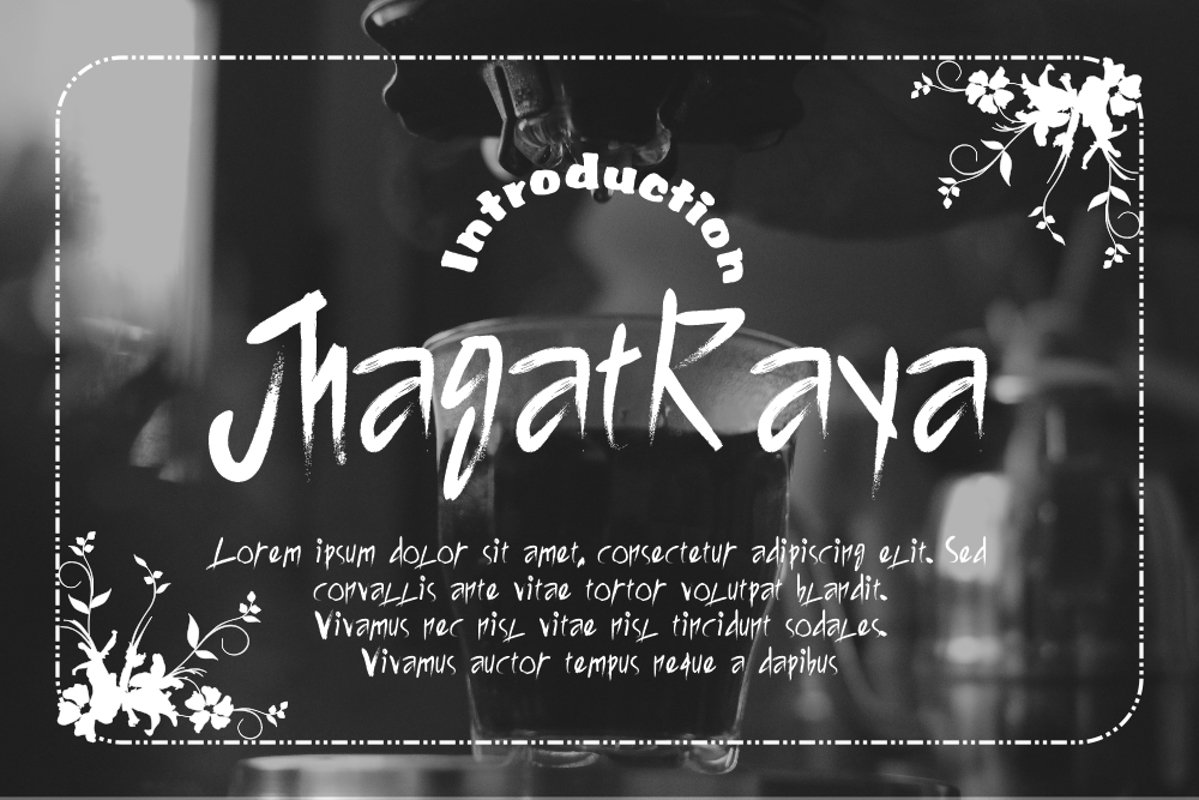
JhagatRaya
JhagatRaya Typeface is a brush type. It suitable for any vintage type needs and more Happy creating.Very suitable for you who do exploration